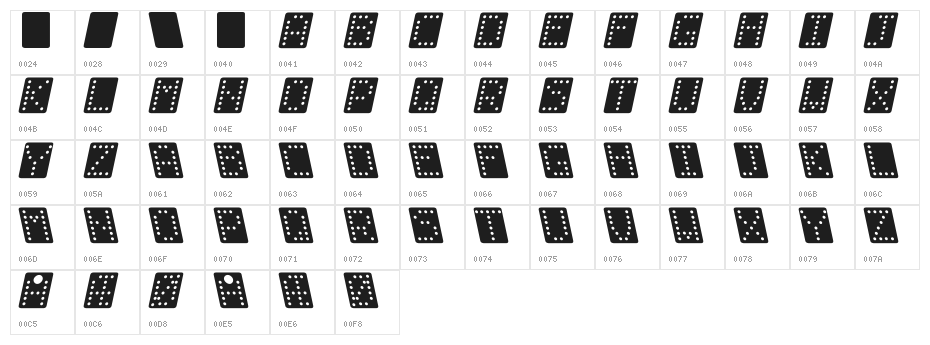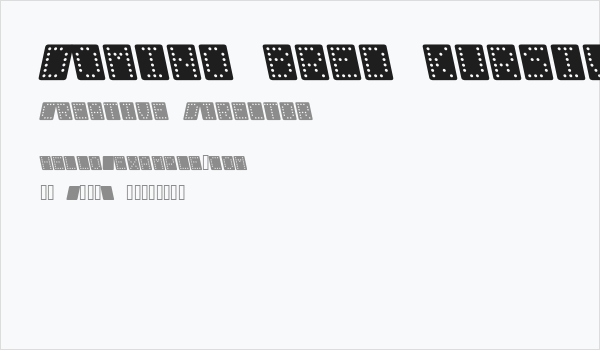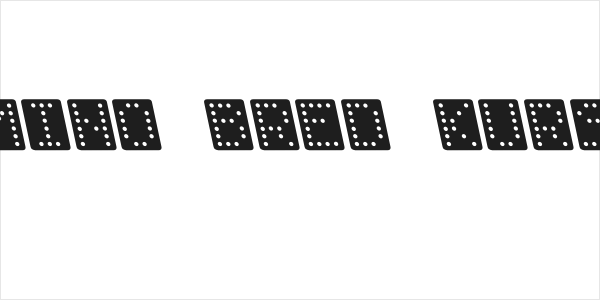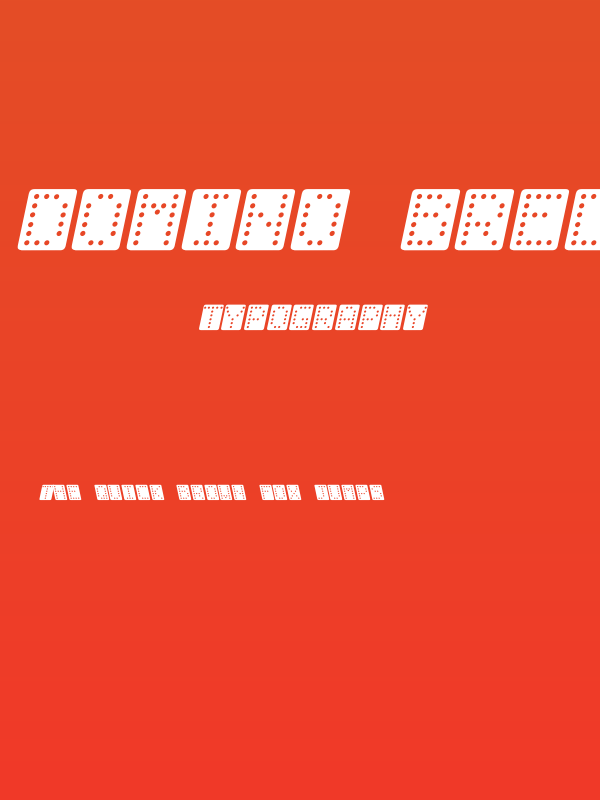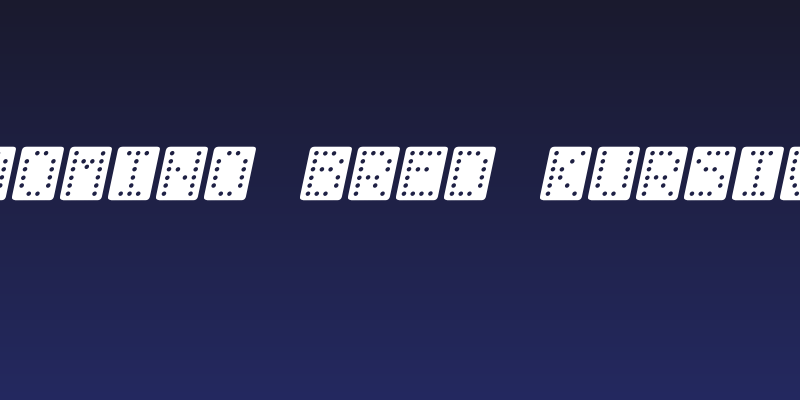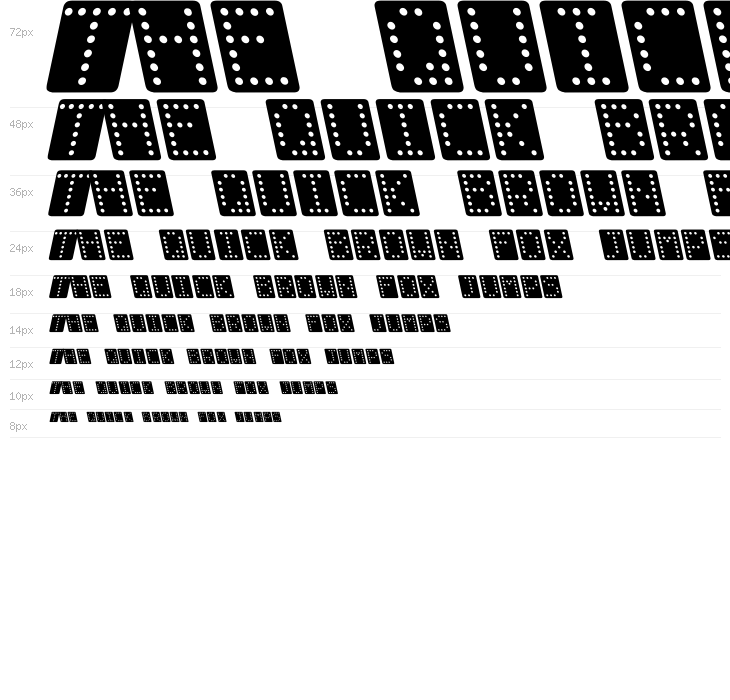
Domino bred kursiv Font
Domino bred kursiv Description
This font features a unique design where each character resembles a domino tile, complete with dots representing numbers. The letters are bold and slanted, giving an italicized appearance. The uppercase and lowercase letters maintain a consistent domino style, with each character enclosed within a rectangular shape. The numbers and special characters follow the same theme, ensuring uniformity across the font. This playful and decorative style is eye-catching and distinct, making it suitable for creative projects that require a fun and engaging typeface.
| Proposed Projects | Ideal for game-themed designs, playful branding, children's books, and creative posters. |